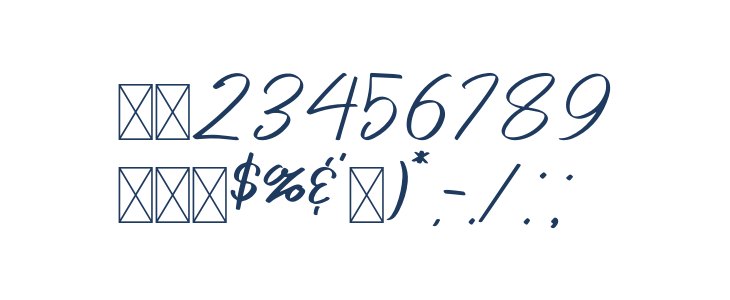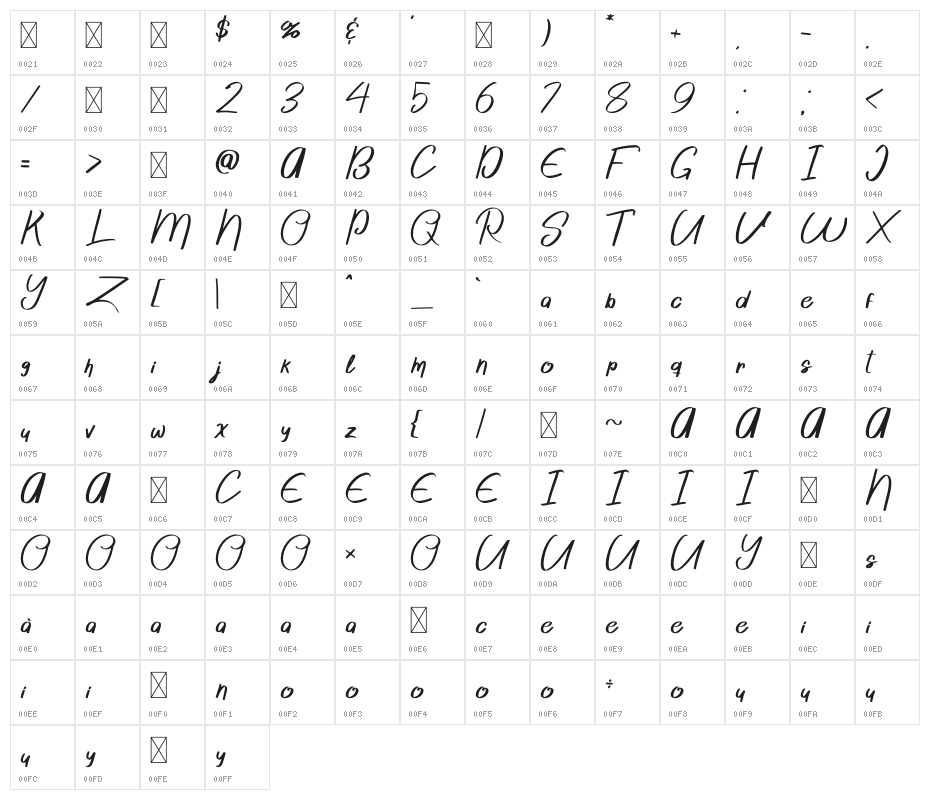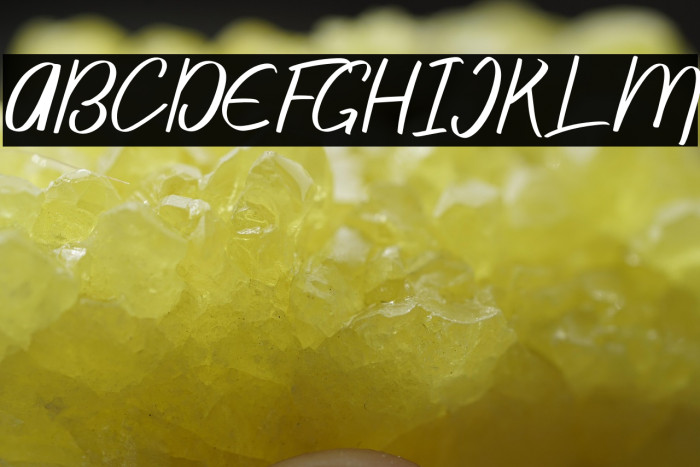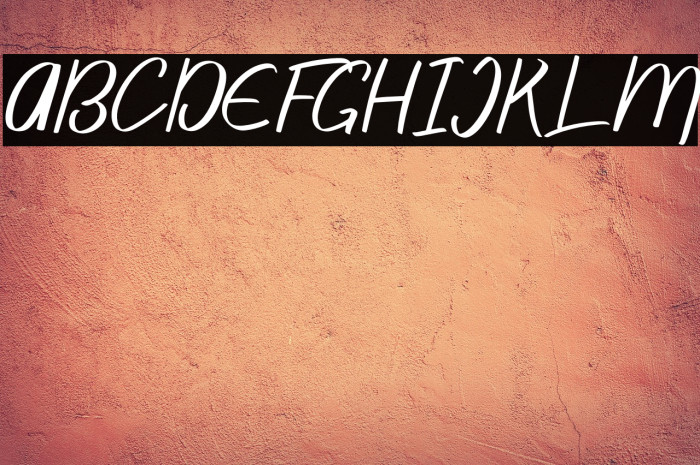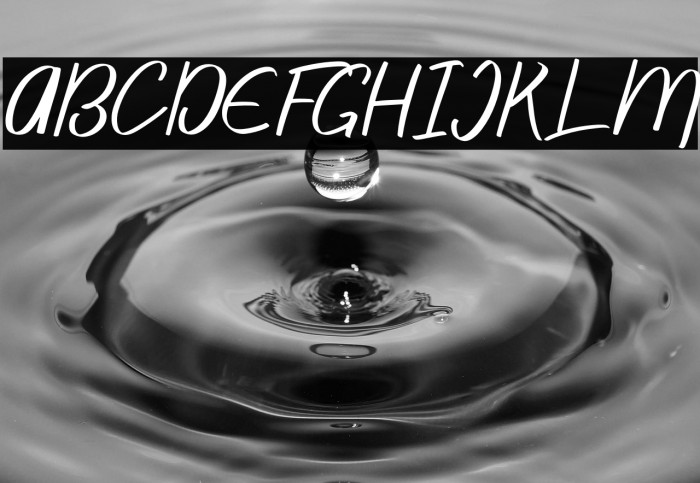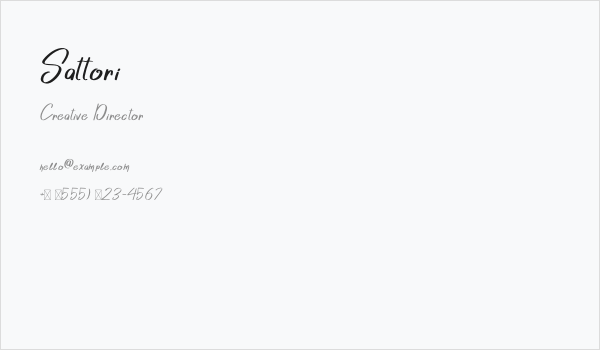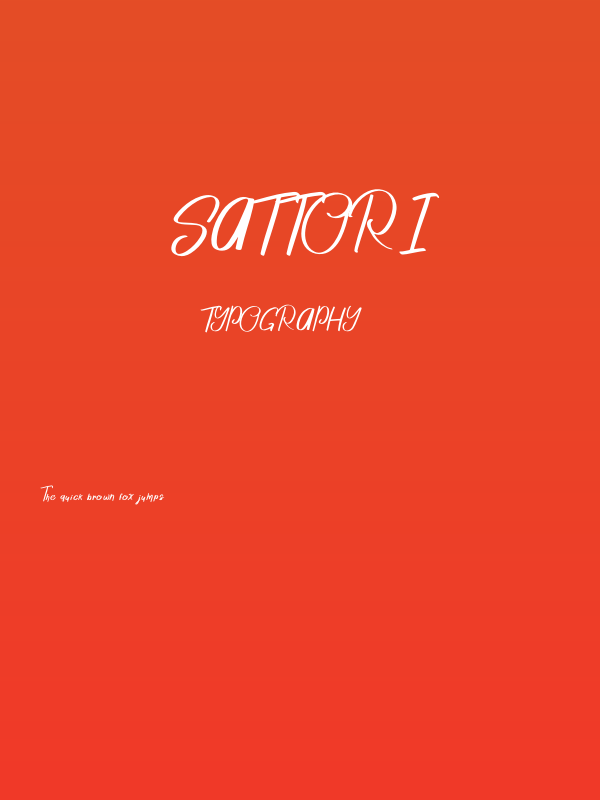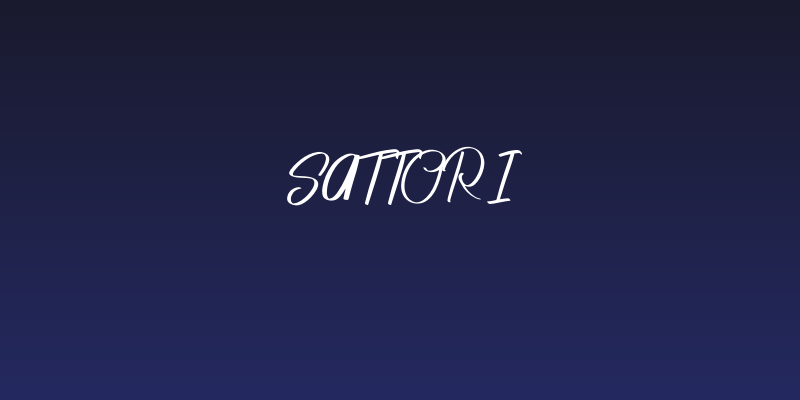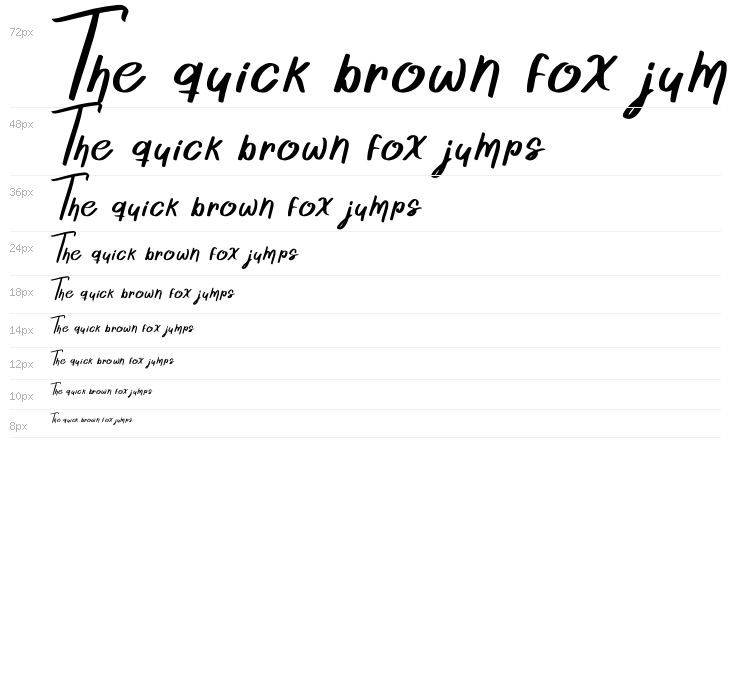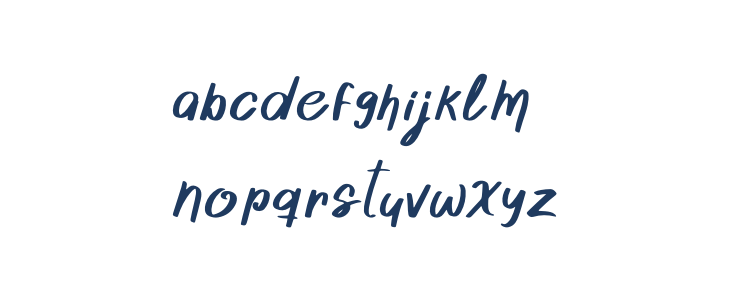
Sattori Font
Sattori Description
This font exhibits a dynamic and fluid script style, characterized by its elegant, flowing curves and a sense of movement. The uppercase letters are tall and slightly slanted, giving a sense of sophistication and grace. The lowercase letters maintain a consistent rhythm, with smooth connections between characters, enhancing readability while preserving an artistic flair. The numerals are distinct and maintain the same flowing style, ensuring they integrate seamlessly with the text. Special characters are crafted with the same attention to detail, making them suitable for a variety of uses. This font is ideal for projects that require a personal touch, such as invitations, greeting cards, or branding materials that aim to convey elegance and creativity.
| Overall Style | Elegant, Artistic |
| Use Case | Headlines, Invitations, Branding |
| Proposed Projects | Ideal for wedding invitations, greeting cards, personal branding, and elegant logo designs. |